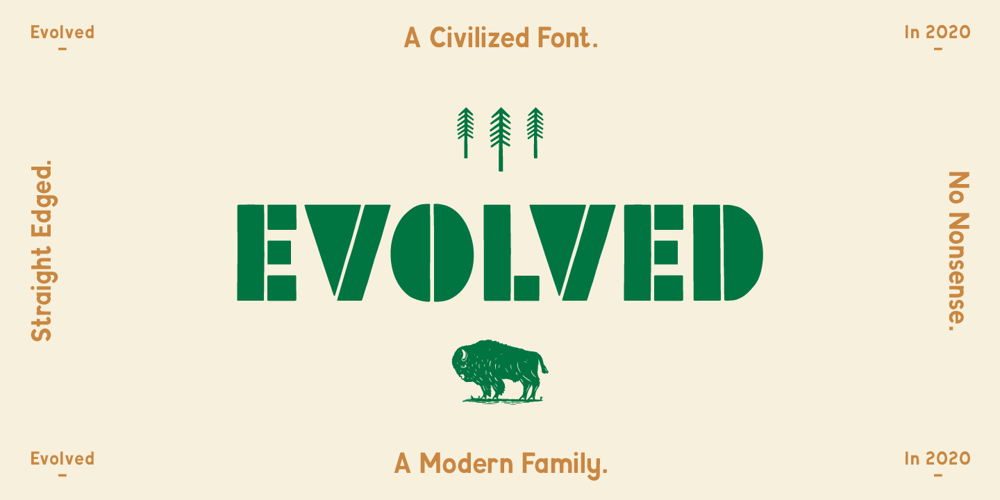
Evolved
Evolved font
Evolved Font Family was designed by Ed Hemphill and published by Hemphill Type. Evolved contains 7 styles and family package options. The evolution of ‘Sapiens’ Evolved is the modern counterpart of its prehistoric cousin, ‘sapiens’. The letterforms have adapted and evolved to fit in a more modern space – this typeface has become more civilized but retains the quirks and character of its predecessor.